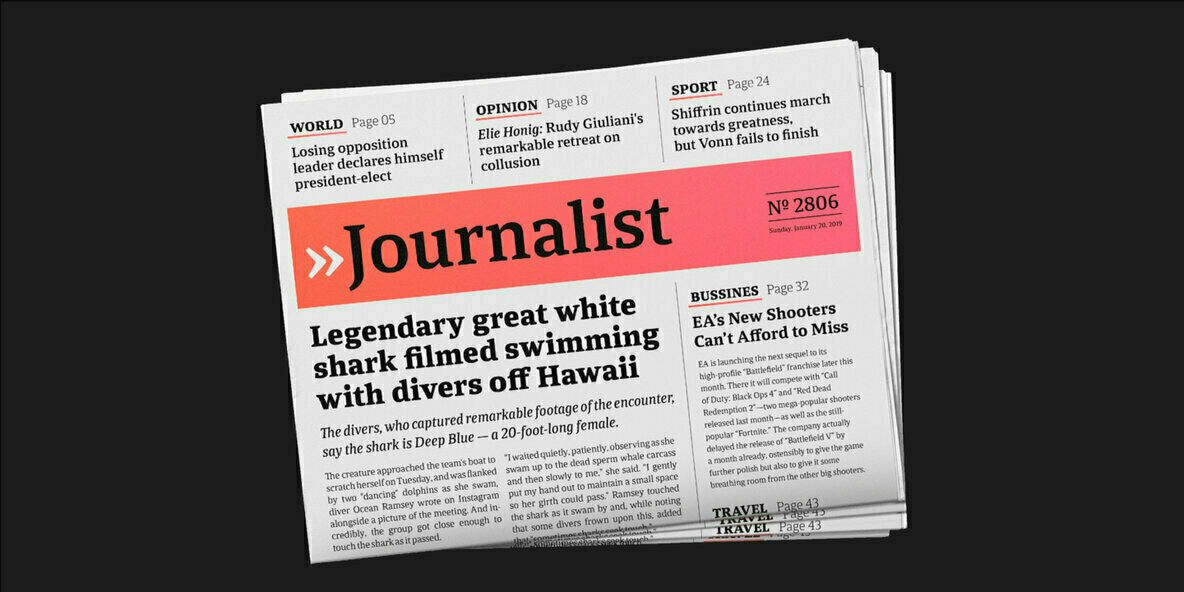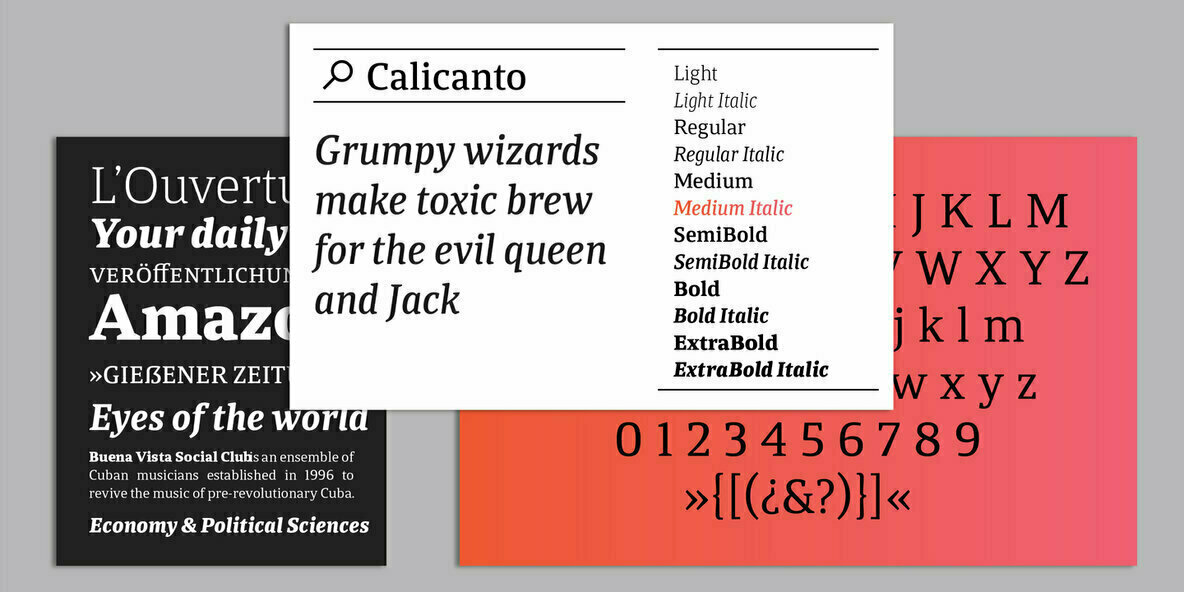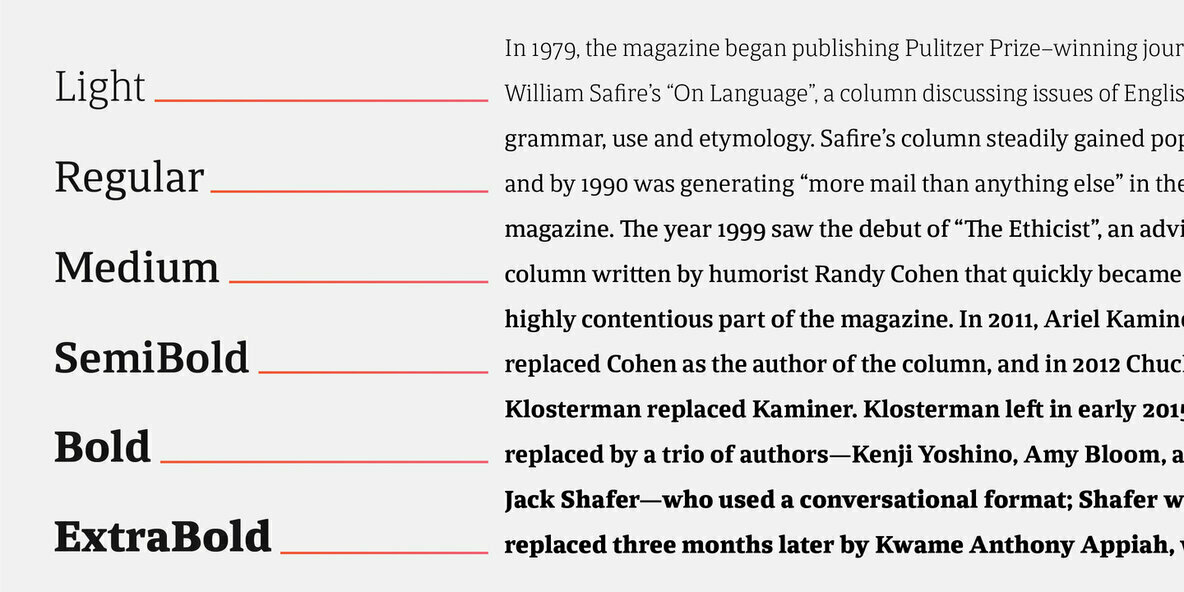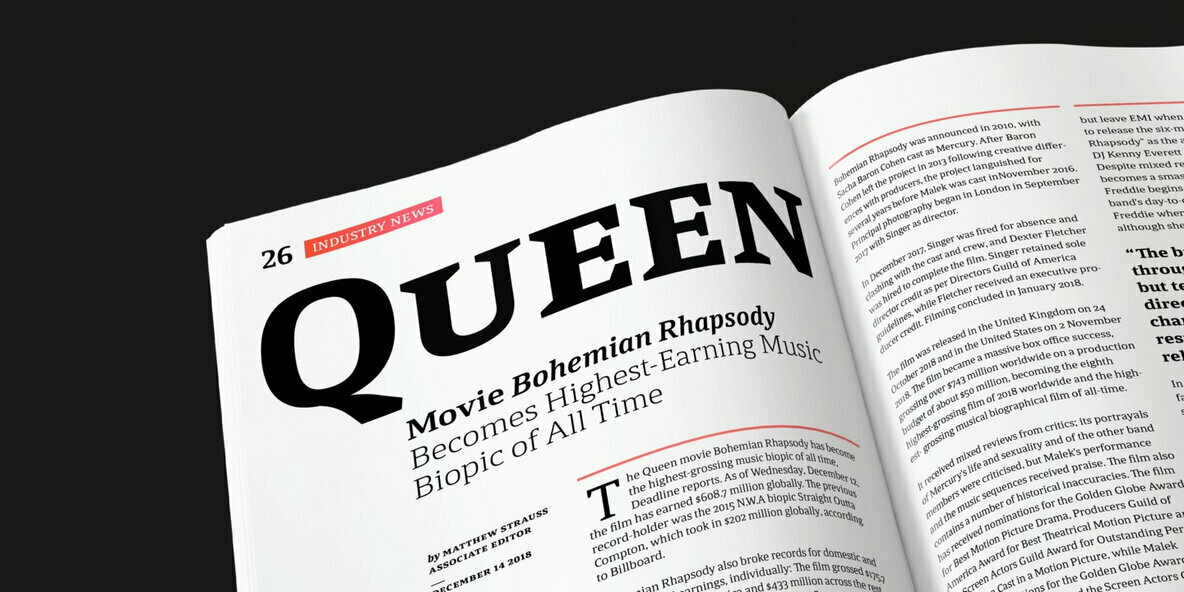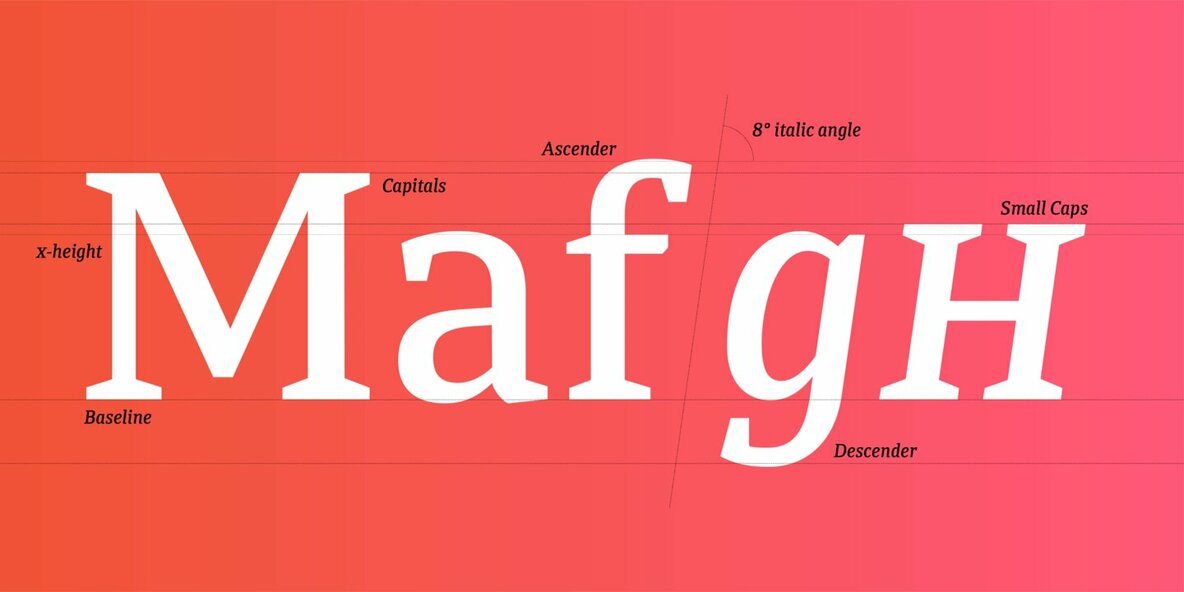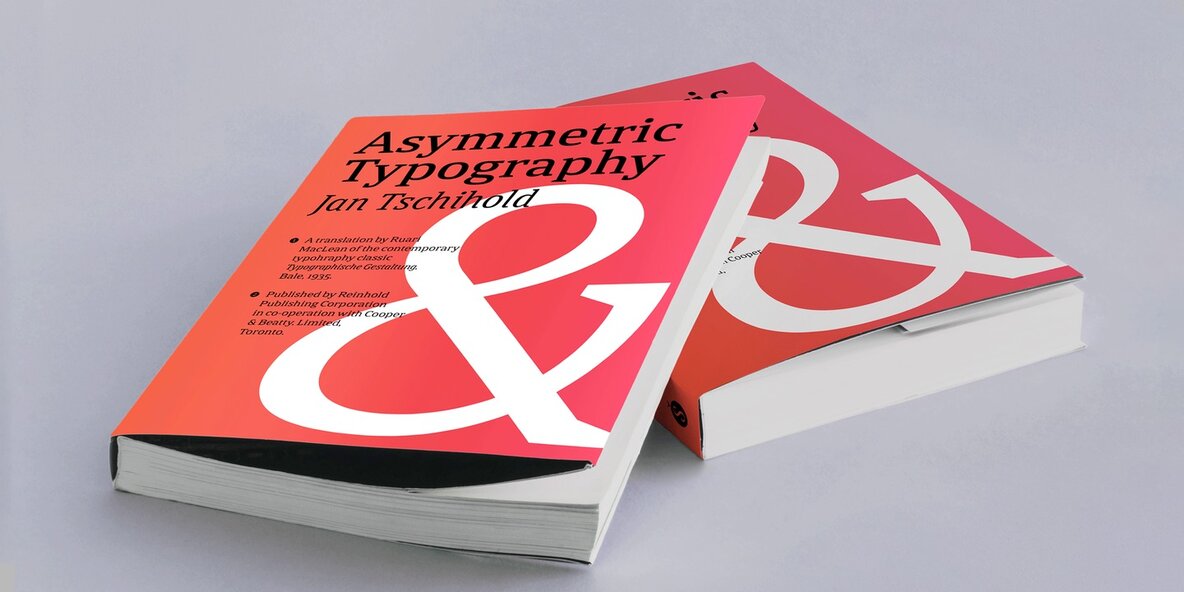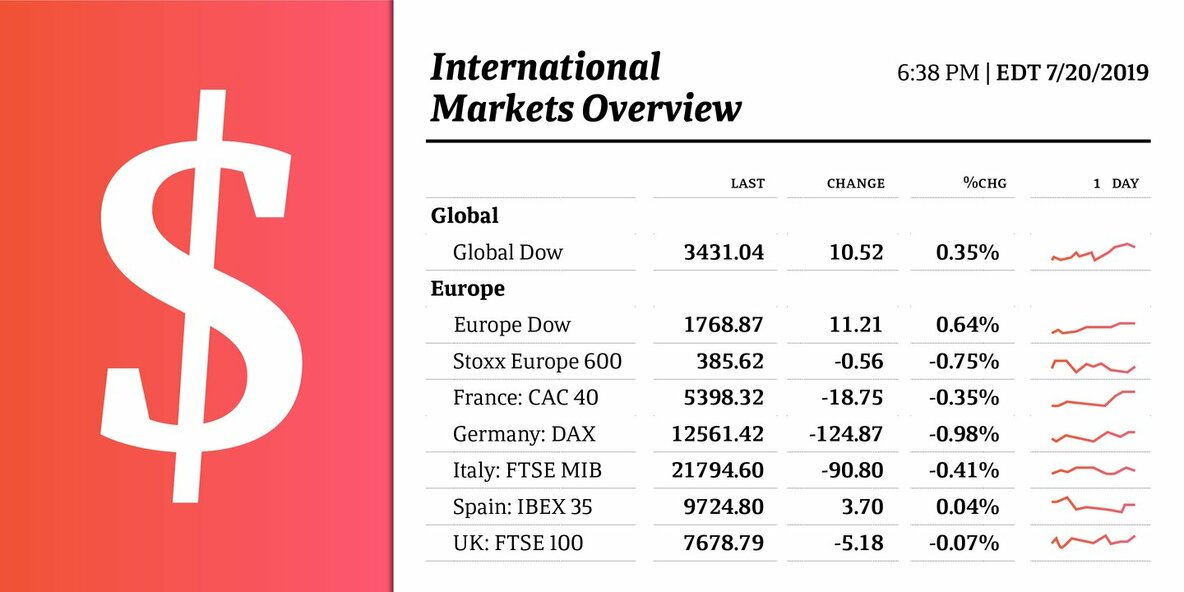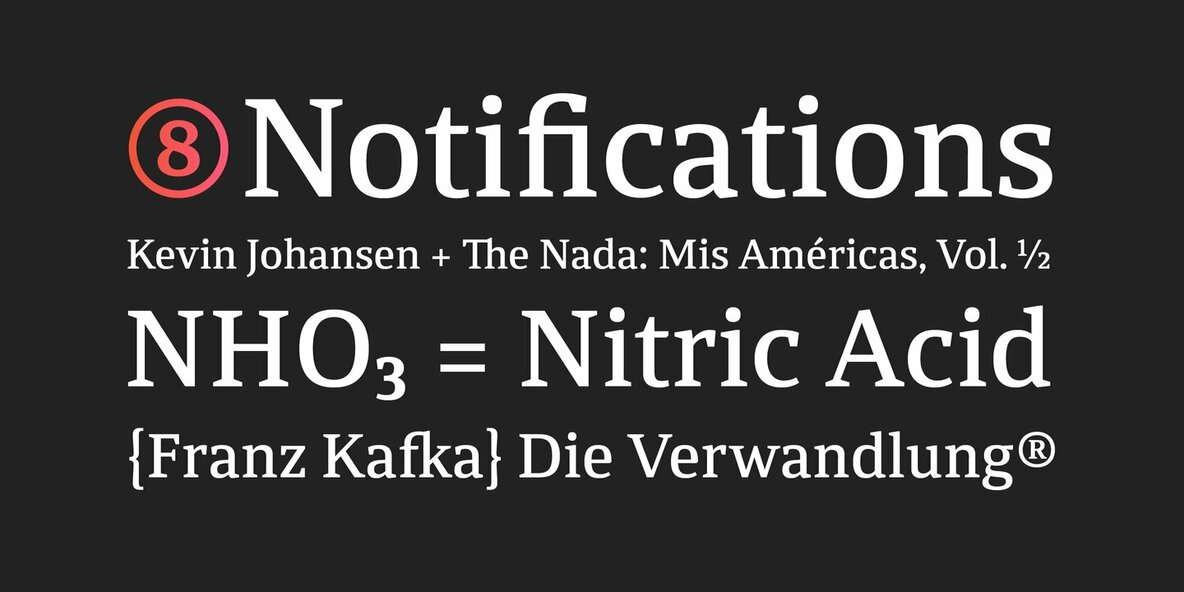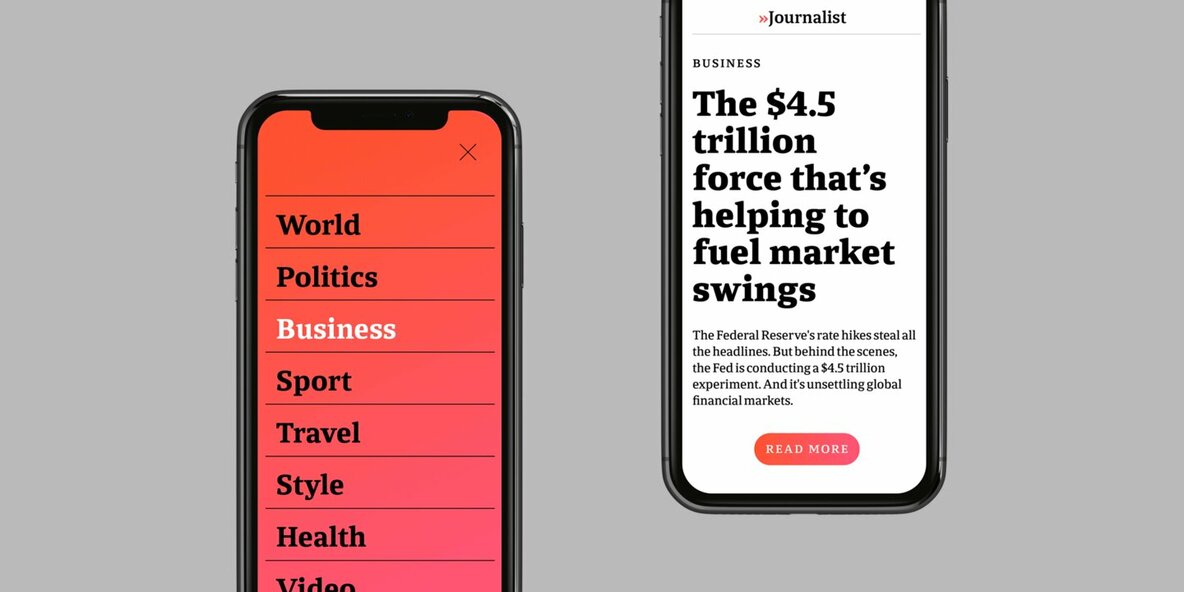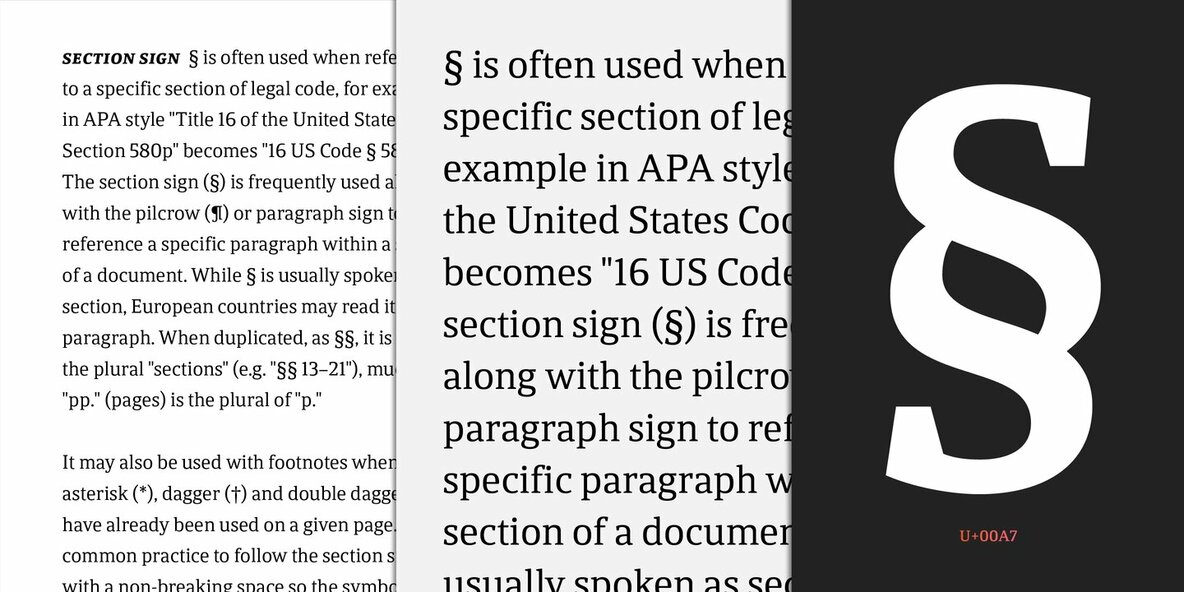
Calicanto Font
Alejandro Freitez’s first commercial typeface is inspired by contemporary serifs and newspaper typography. Calicanto is a compact typeface with strong serifs, symmetrical curves and a vertical axis. It has open counters and a generous x-height with slightly condensed characters and low contrast strokes. The design of its letters are simple (with a precise rationale), and it is ideal for combining different variables and typographic bodies, for digital and printed media.
Each of the 12 variables has 750 glyphs (supporting more than 90 languages), with small caps, ligatures, lining figures by default, OldStyle and tabular, mathematical and currency symbols for each set of numerals, intelligent fractions, lower and upper numerals, glyphs sensitive to capital letters and circular numerals, among other OpenType functions that make it ideal for composing demanding texts for books, magazines, newspapers, annual reports, and much more.